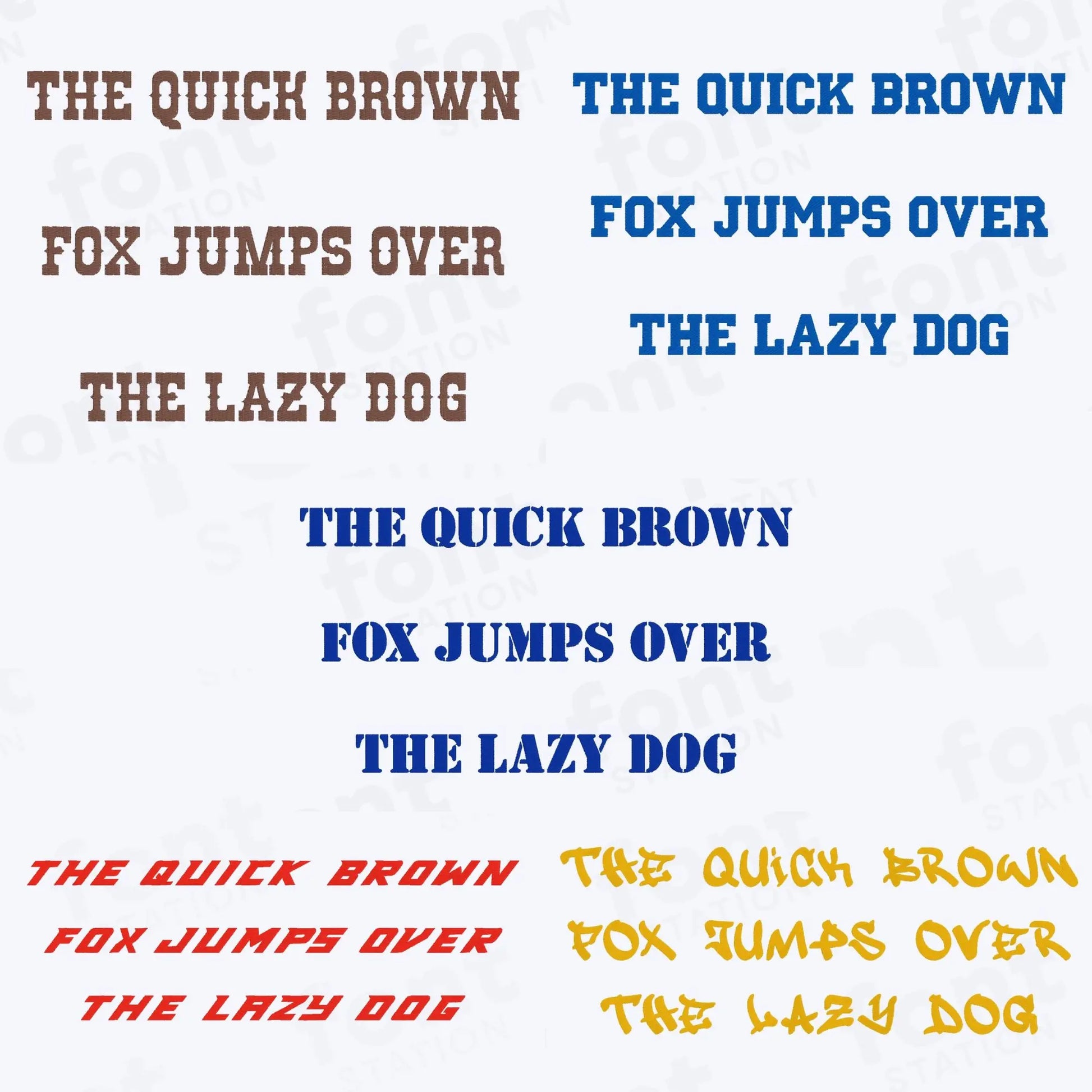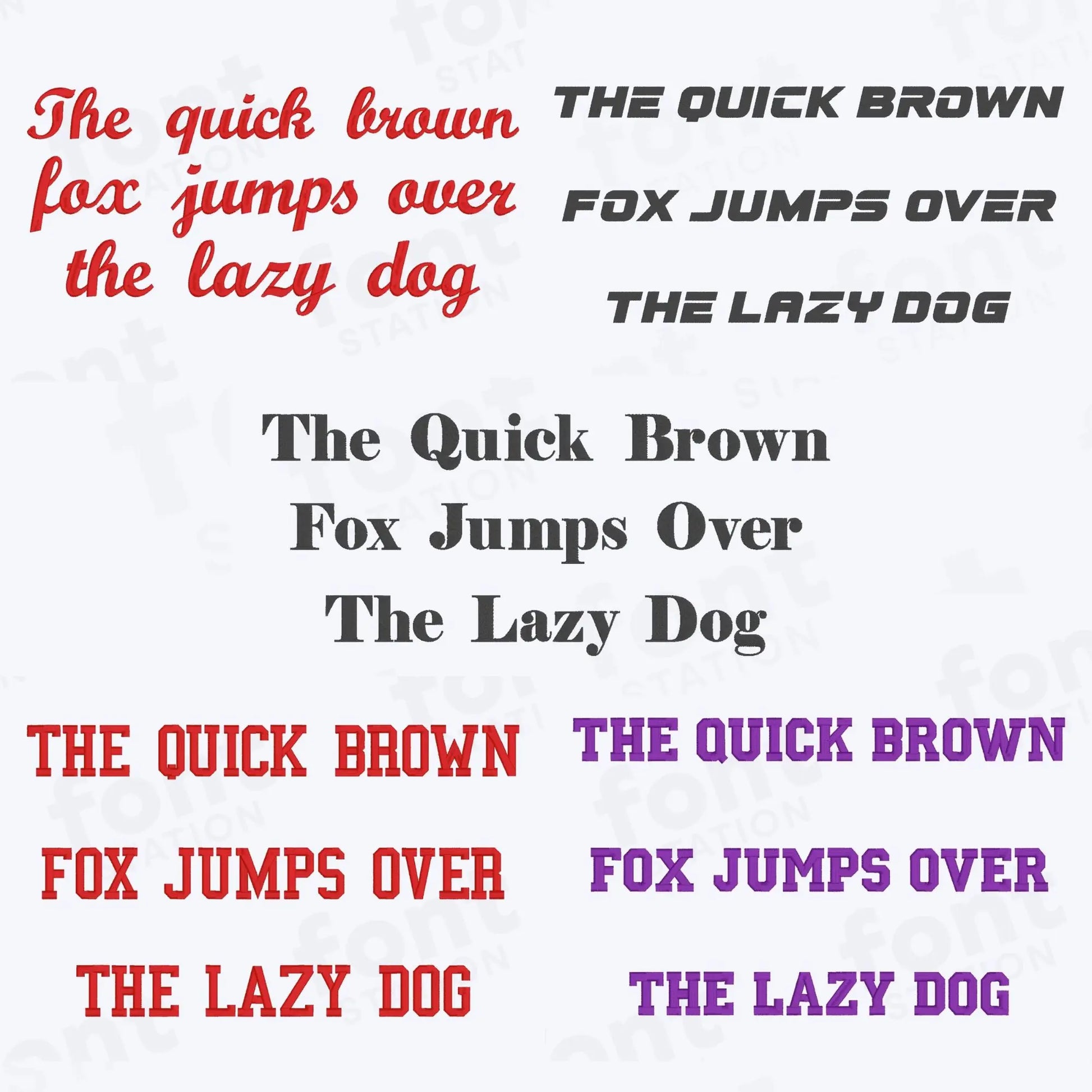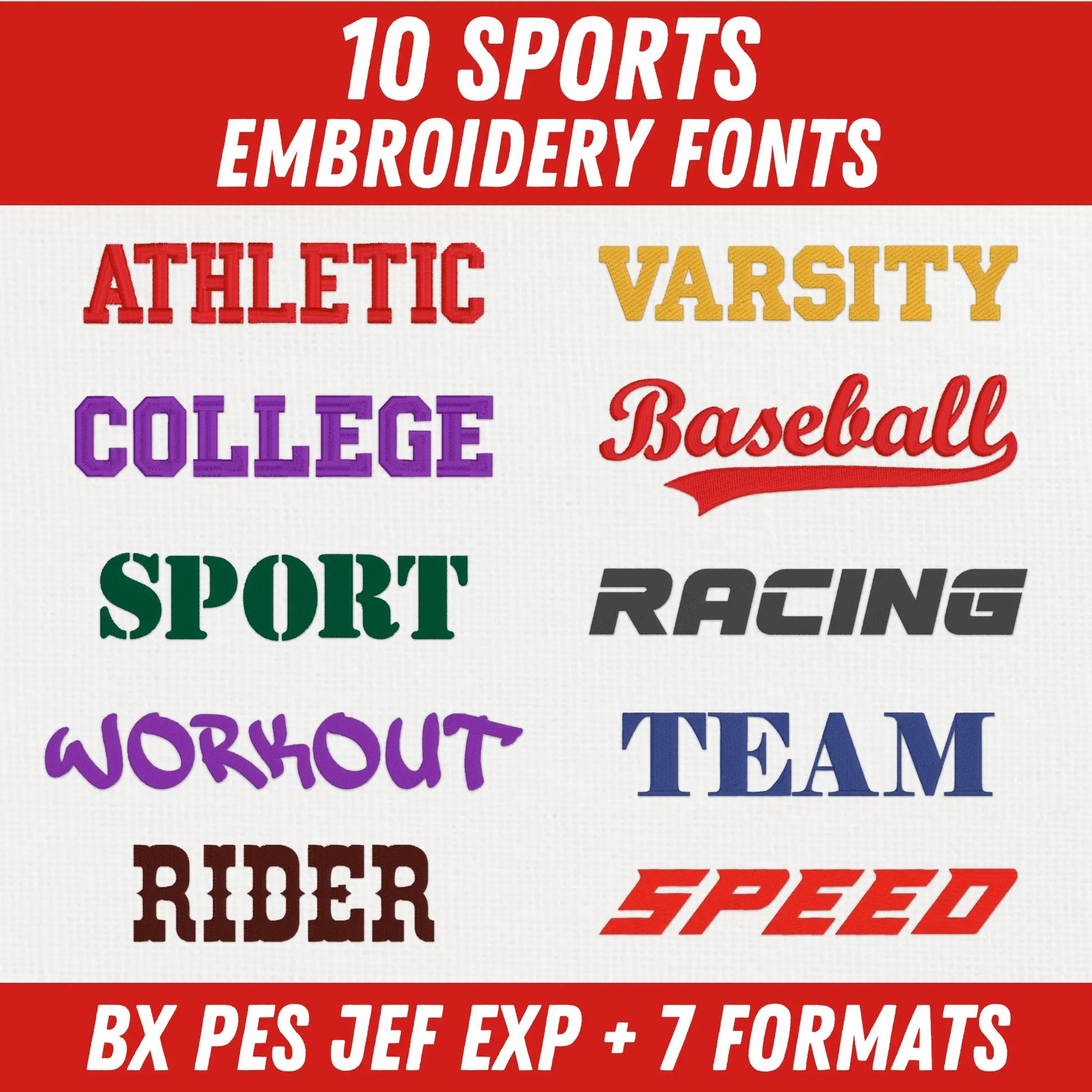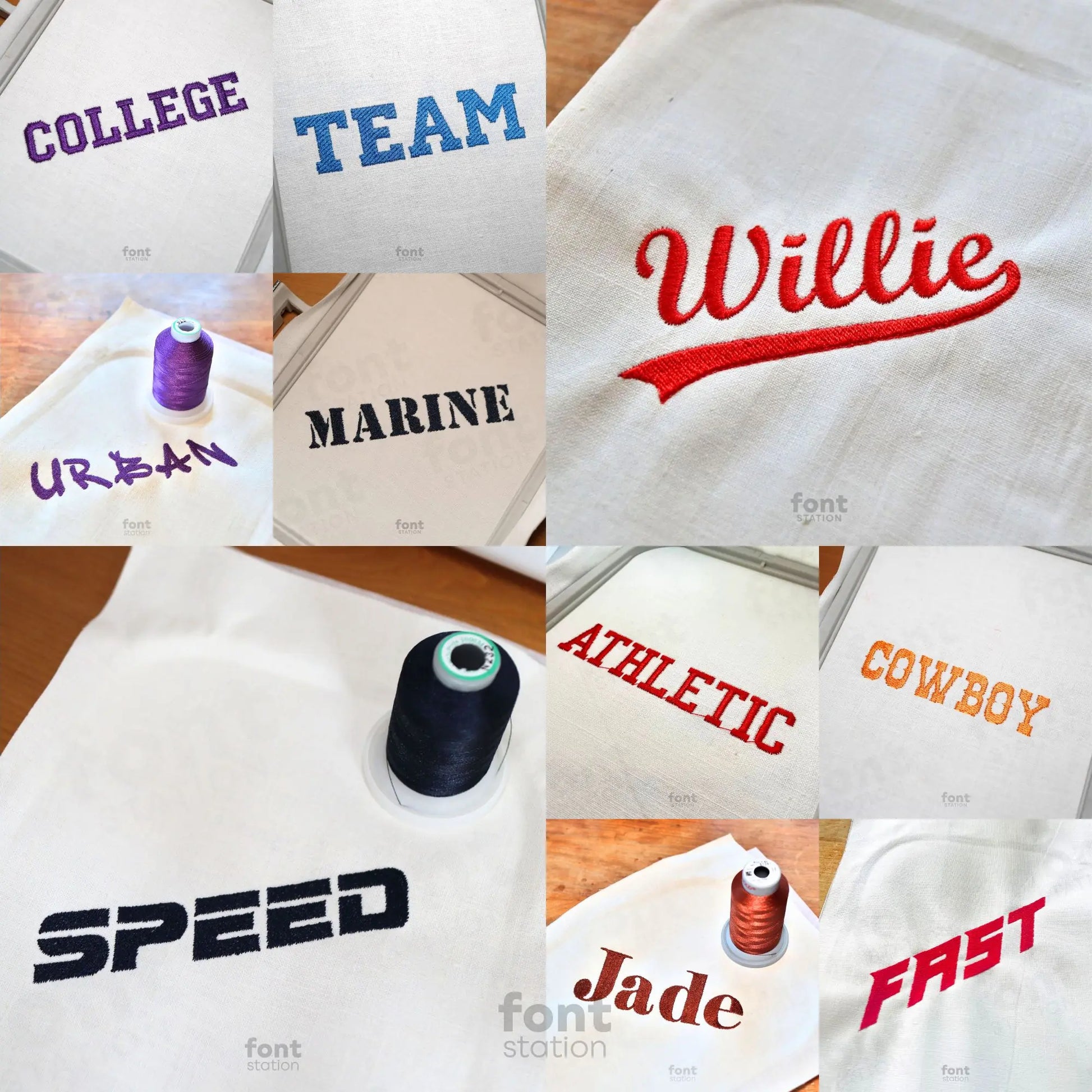
Sports Embroidery Font Bundle
Get ready to stitch bold, athletic letters with our Sports embroidery font bundle. This dynamic alphabet is perfect for sporty designs, team gear, and any project made with your embroidery machine. Includes 10 fonts for standout embroidery letters in every stitch.
Sports embroidery font bundle - bold athletic letters for machine embroidery
Bring energy and impact to your embroidery projects with our Sports embroidery font bundle, featuring 10 dynamic fonts inspired by varsity, sport, and athletic styles. This machine embroidery alphabet collection includes bold, machine-ready embroidery letters designed for team gear, sporty gifts, and standout apparel. Each font is professionally digitized and includes multiple sizes for your embroidery machine:
• Athletic: Satin – 0.5", 0.75", 1", 1.5", 2", 2.5", 3", 4", 5" | A-Z, 0-9, @ ; - ! # ? "
• Baseball: Satin – 1", 1.5", 2", 2.5", 3" | A-Z, a-z, 0-9
• College: Satin – 0.25", 0.5", 0.75", 1", 1.5" | Fill – 2", 2.5", 3", 4", 5" | A-Z, 0-9, & ' * : , - ! # ( ) . ? "
• Varsity: Satin – 0.5", 0.75", 1", 1.5", 2", 2.5", 3" | A-Z, 0-9, & , - . ! # ( ) ? /
• Rider (Cowboy): Satin – 0.75", 1", 1.5", 2" | A-Z, 0-9, & . ! ?
• Sport (Marine): Satin – 0.5", 0.75", 1", 1.5", 2", 2.5", 3", 4" | A-Z, 0-9, & - . ! # ?
• Team (Elegant Bold): Satin – 0.25", 0.5", 1" | Fill – 1.5", 2", 2.5", 3", 4", 5" | A-Z, a-z, 0-9, & ' * @ : , - . ! # ( ) ? " ; /
• Workout (Urban): Satin – 0.5", 0.75" | Fill – 1", 2", 3", 4", 5" | A-Z
• Speed: Fill – 1", 2", 3", 4" | A-Z
• Racing: Fill – 0.5", 0.75", 1", 1.5", 2", 2.5", 3" | A-Z, a-z, 0-9, & ? ! . : ' "